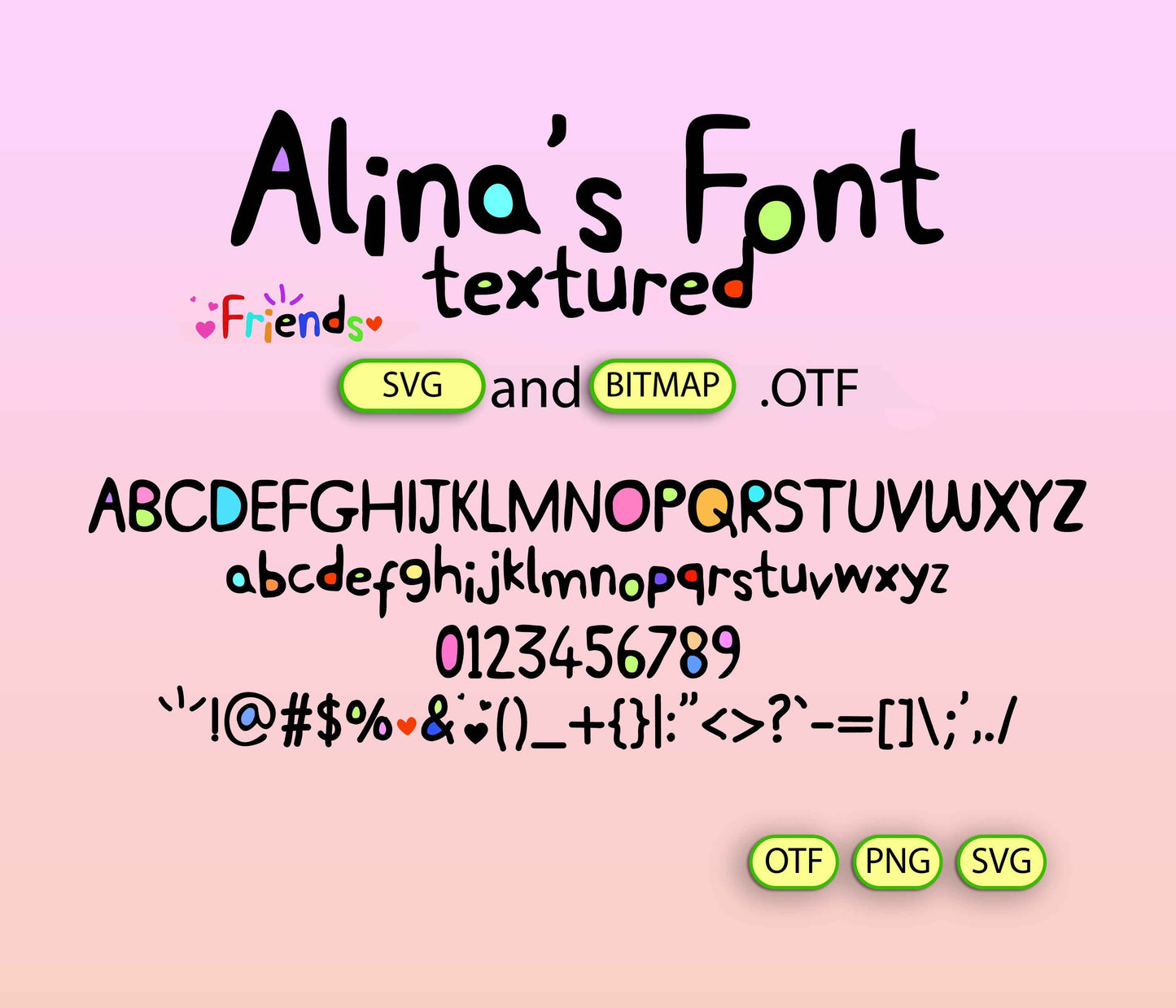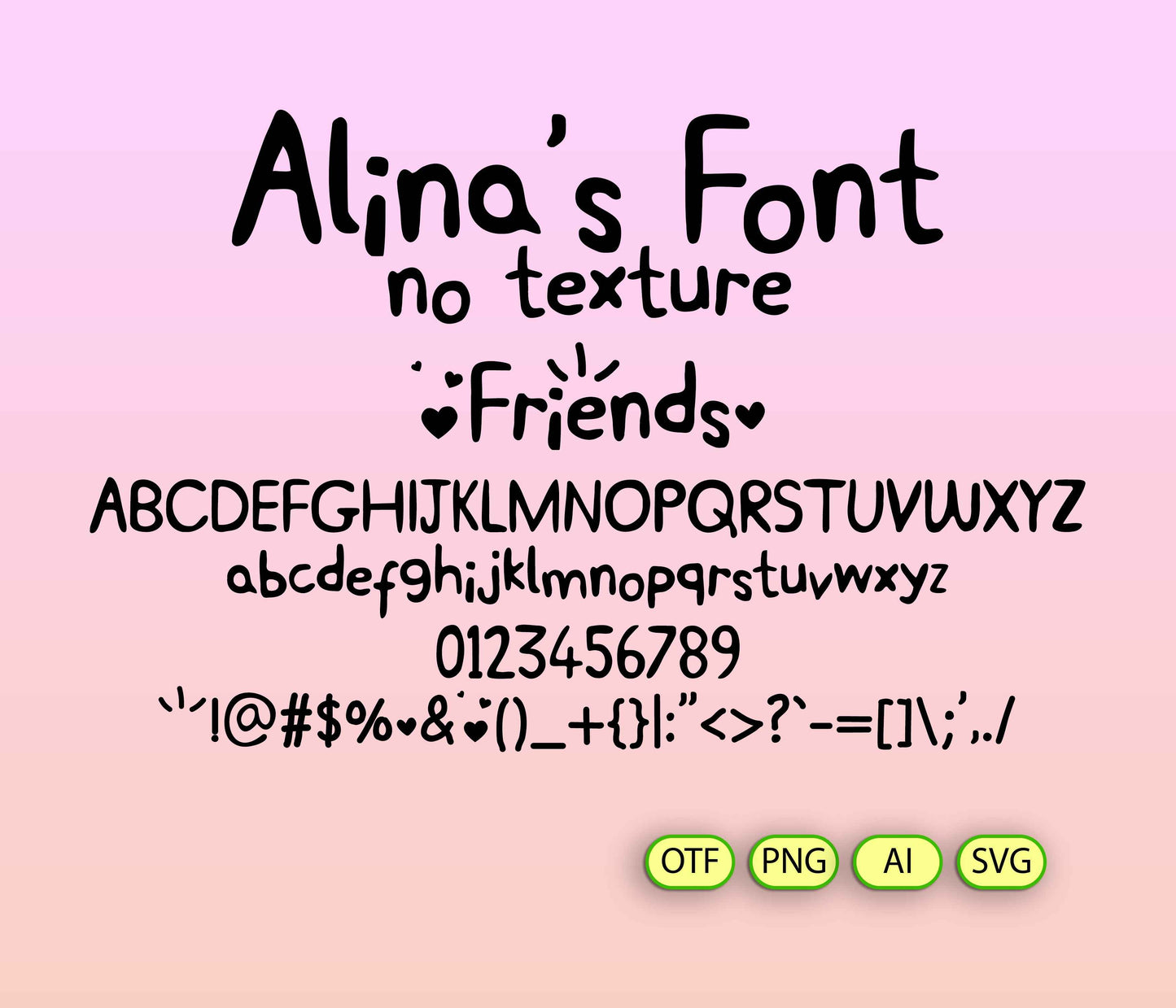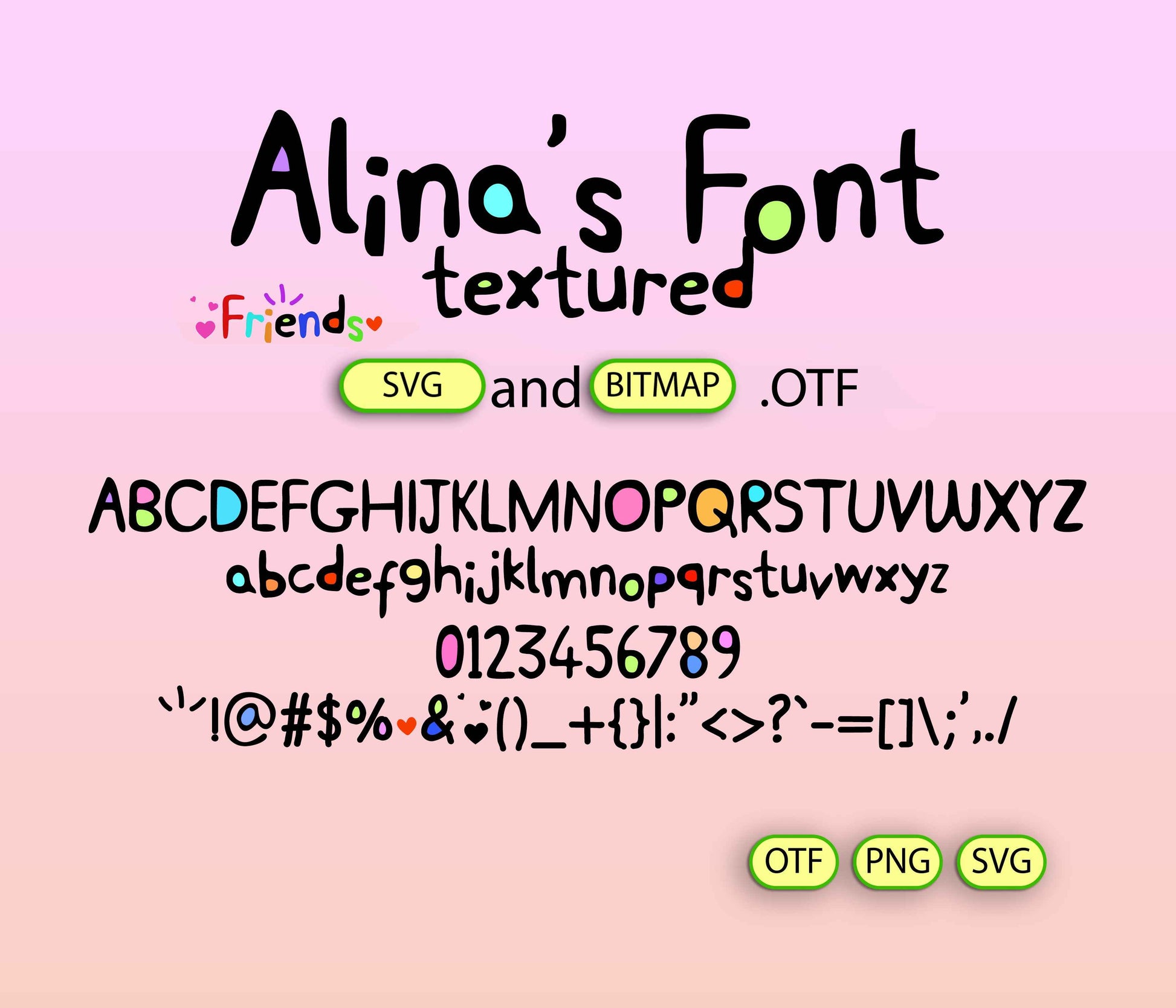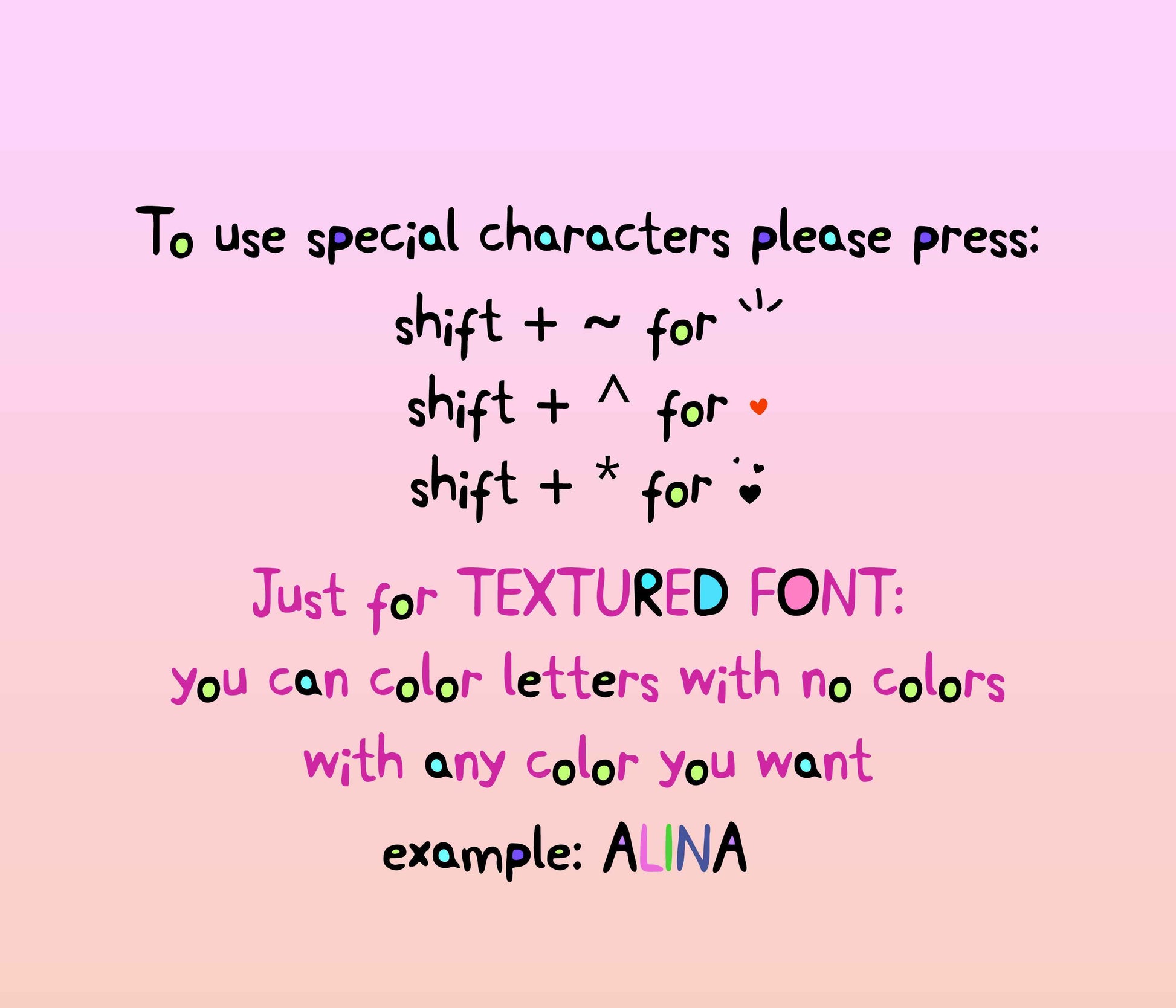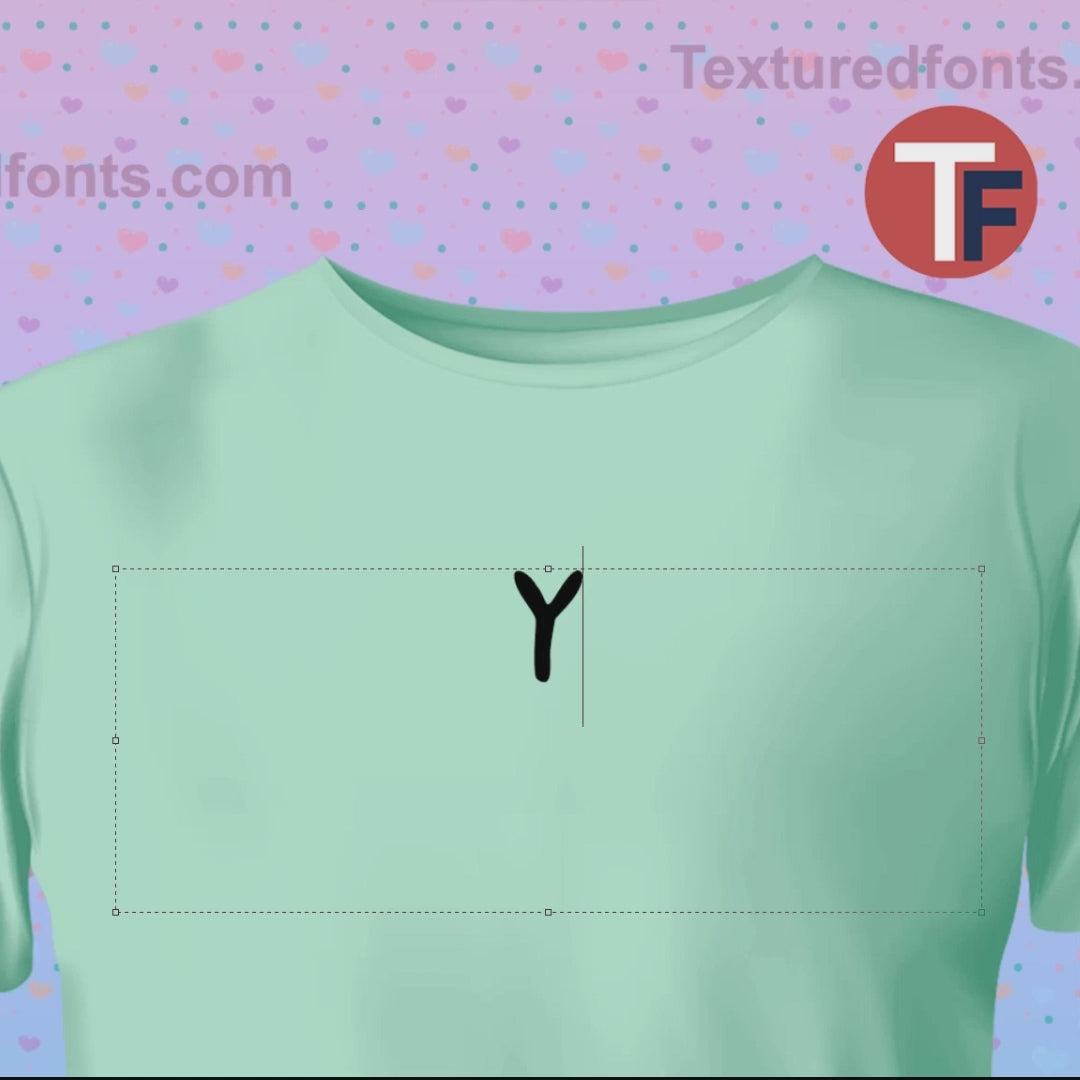
Friendship Font Textured
Friendship Textured Font: Warm and Welcoming
Embrace the essence of connection with the Friendship Textured font, designed to convey the comfort and warmth of close relationships. This font is perfect for projects that celebrate human bonds, from personal greetings to community events.
The Friendship Textured font features a handcrafted look with rough edges and irregularities that enhance its homemade, heartfelt appeal. Its cozy and approachable style is ideal for invitations, personal blogs, scrapbooking, and decorative projects that aim to create a sense of intimacy and affection.
Use the Friendship Textured font to add a personal touch to your designs, making every word evoke the closeness and comfort of friendship. Whether you're crafting a heartfelt card or designing a community newsletter, this font helps you communicate genuine warmth and welcome.